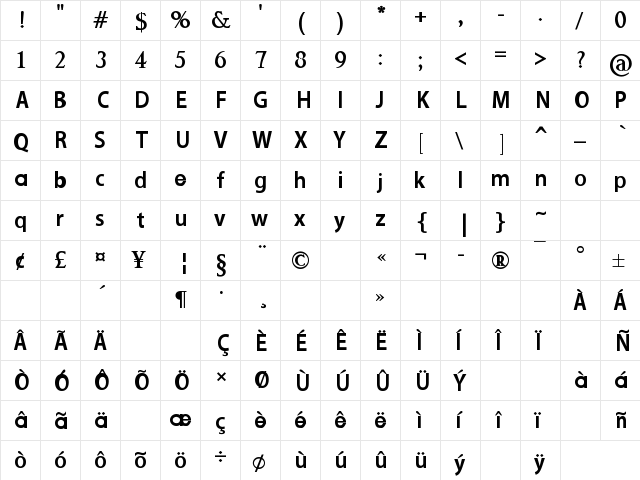
nutella Bold Font Preview
nutella Bold
Design Context for nutella Typeface
nutella takes a measured approach to typography — its balanced proportions and neutral character make it a reliable workhorse for both digital and print work. The heavy weight commands attention and anchors typographic hierarchies.